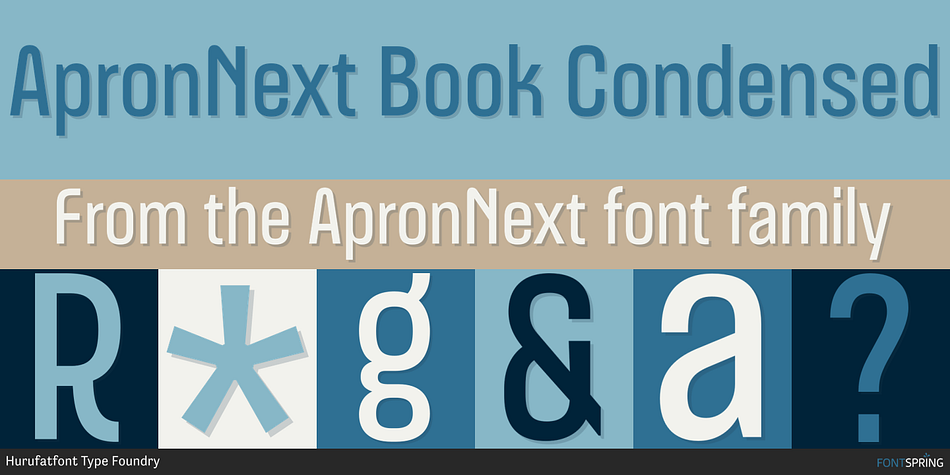
ApronNext Book Condensed
Designed by Oğuzhan Cengiz, ApronNext is a sans serif font family. This typeface has forty-eight styles and was published by Hurufatfont Type Foundry.
ApronNext is a completely revamped version of Apron, released in March 2019.
ApronNext has been meticulously revamped from top to bottom, including x-height, letter spacing and weights. More options have been added to italic glyphs, The letters “a” and “d” have been designed in a more industrial style.
Opentype features have been improved. You can now see the names of the style alternatives in the opentype panel.